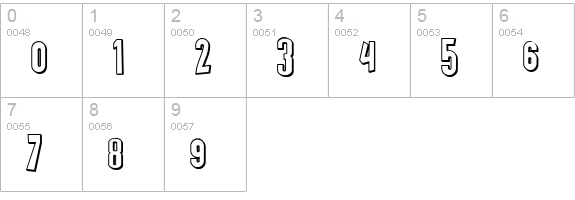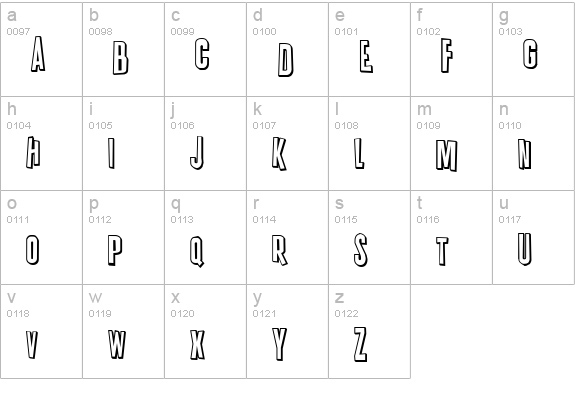
K.P. Duty Shadow JL Font Details
Introducing the K.P. Duty Shadow JL font, a stunning and versatile typeface that effortlessly captures attention with its bold and captivating presence. This font is perfect for adding a touch of elegance and sophistication to any design project, whether it be for a logo, branding materials, invitations, or even headlines. K.P. Duty Shadow JL boasts a unique and eye-catching shadow effect that adds depth and dimension, making it stand out from the crowd. Its clean and well-defined lines give it a modern and contemporary feel, while still maintaining a hint of classic charm. With its versatile nature, this font is suitable for a wide range of design styles, from minimalist and sleek to bold and dramatic. One of the most remarkable aspects of K.P. Duty Shadow JL is that it is freely available to download at FontsMarket.com. This means that you can harness the power and beauty of this font without any cost, making it an invaluable resource for both professional designers and typography enthusiasts alike. By offering this font for free, the creators have made it accessible to everyone, ensuring that creativity knows no boundaries. Whether you are looking to make a statement with your next design project or simply want to add a touch of elegance to your personal creations, K.P. Duty Shadow JL is the perfect choice. Its free availability on FontsMarket.com allows you to unleash your creativity and explore the endless possibilities that this font has to offer. So why wait? Download K.P. Duty Shadow JL today and let your designs shine with its captivating beauty.